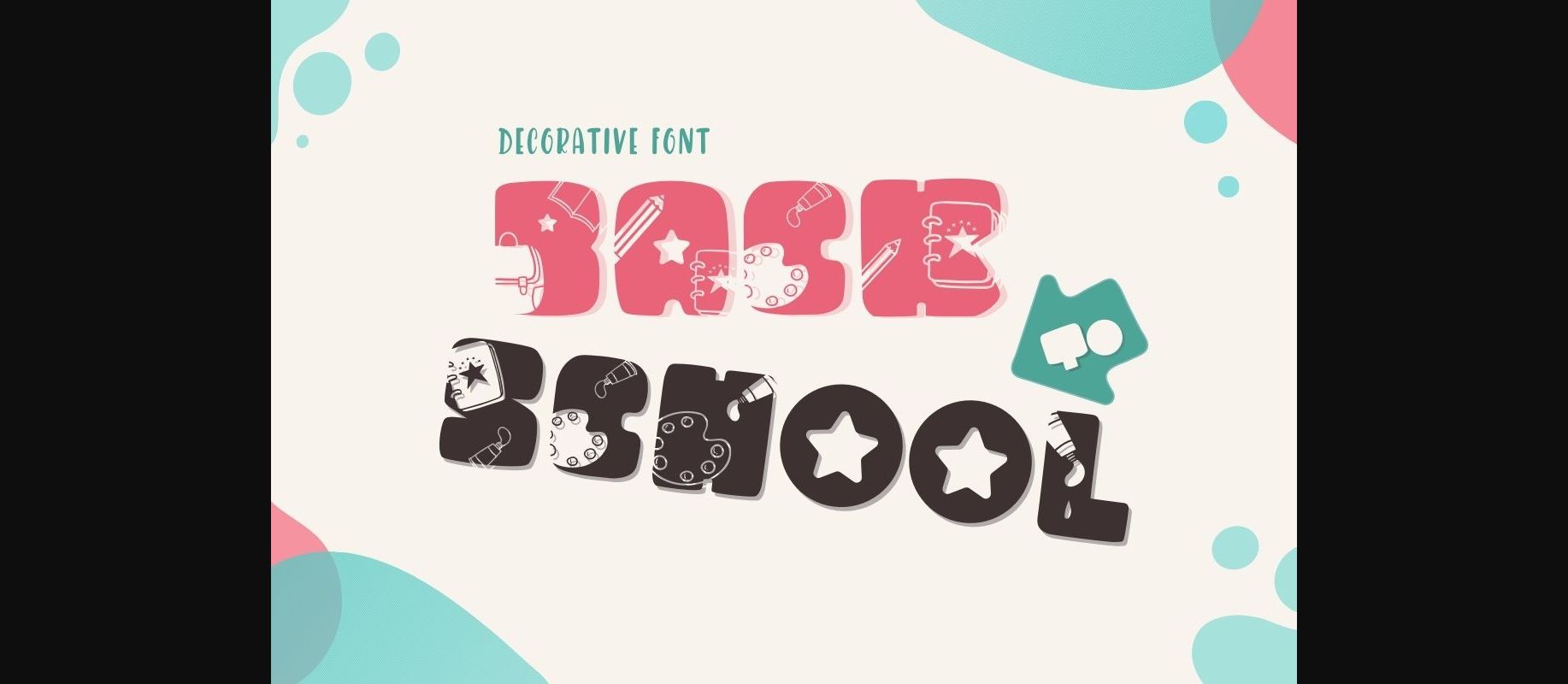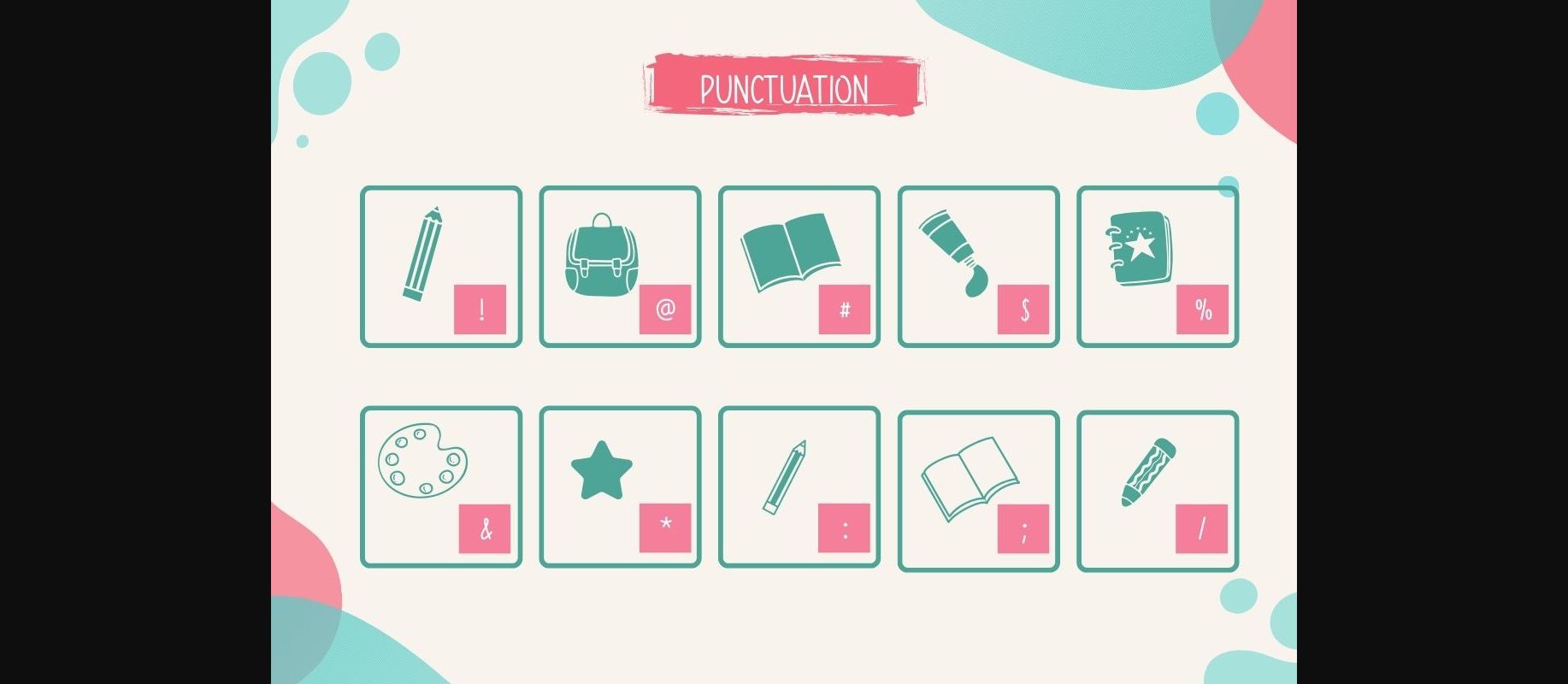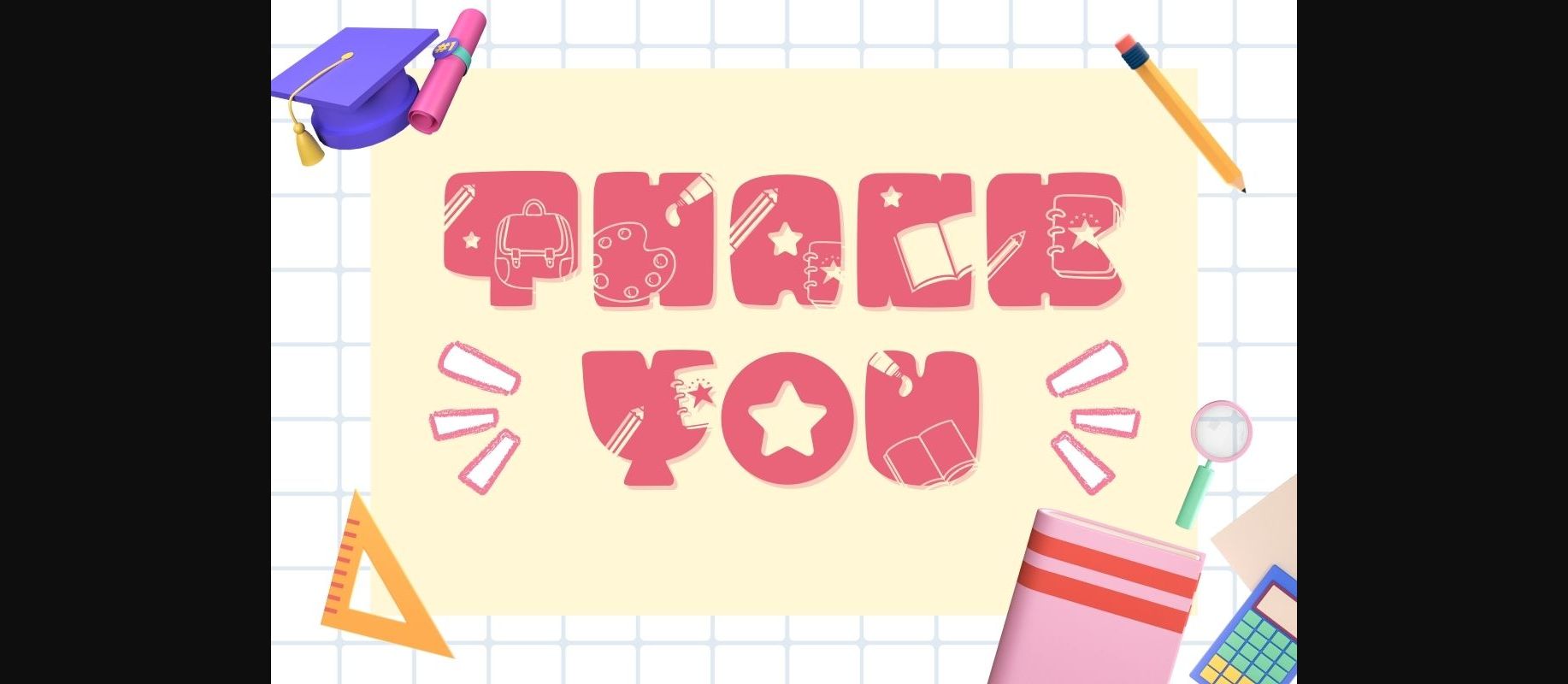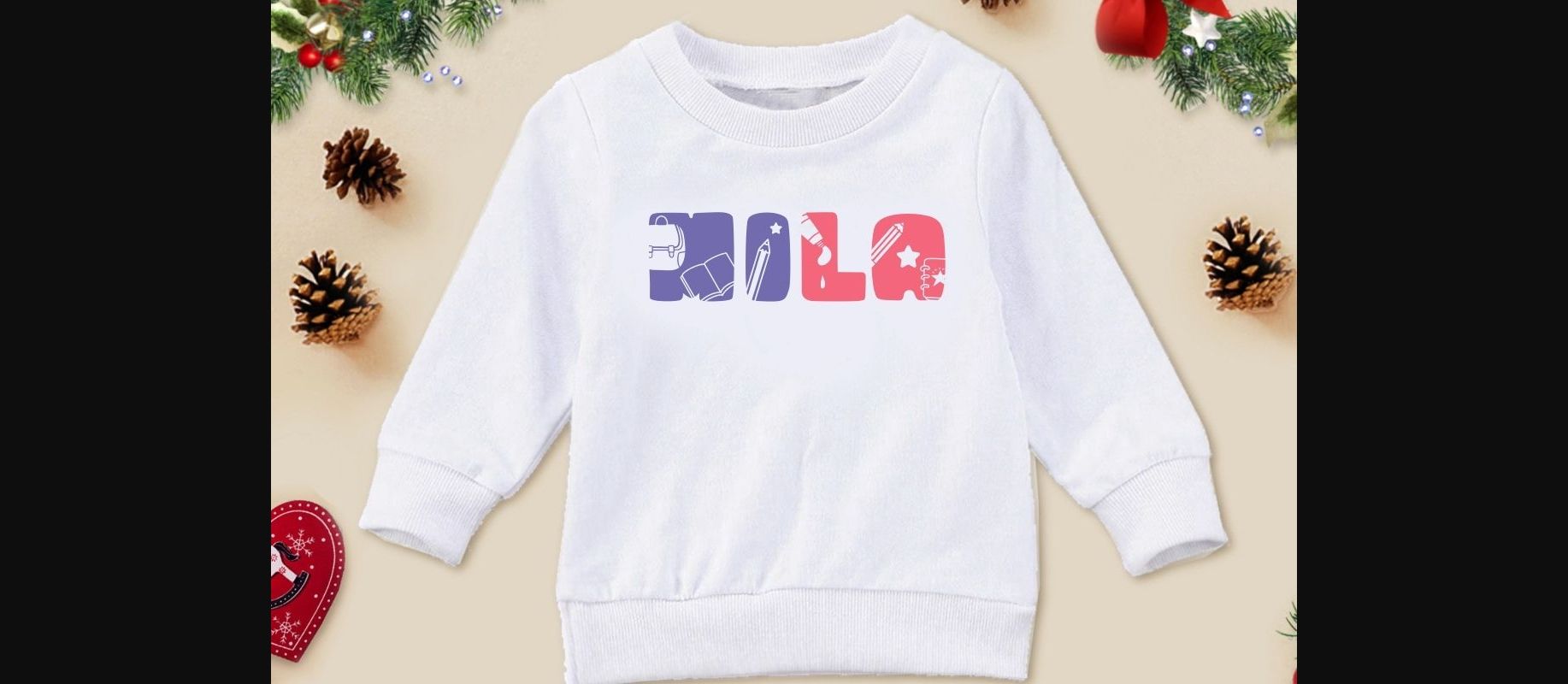
About Back to School Font
Back To School is a cute and quirky decorative display font. Its fun character makes it suitable for creating a variety of designs to match the back-to-school theme such as banners, mugs, cards, shirts, social media posts, and much more!